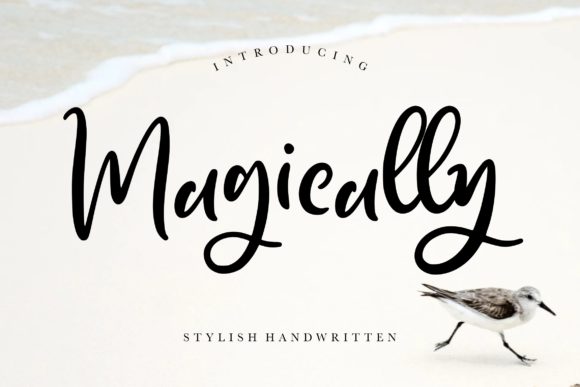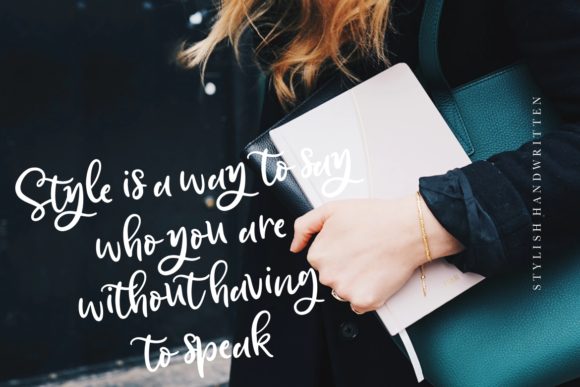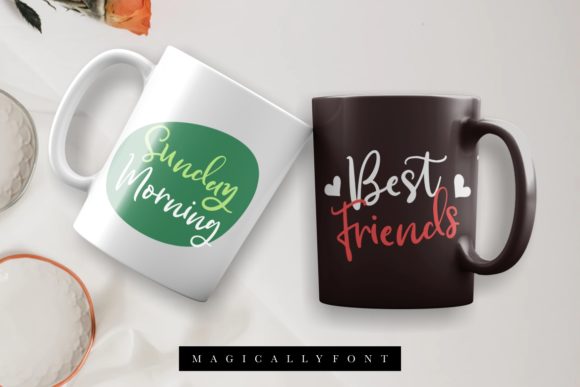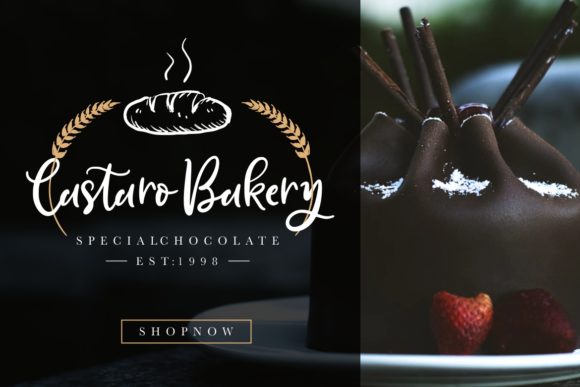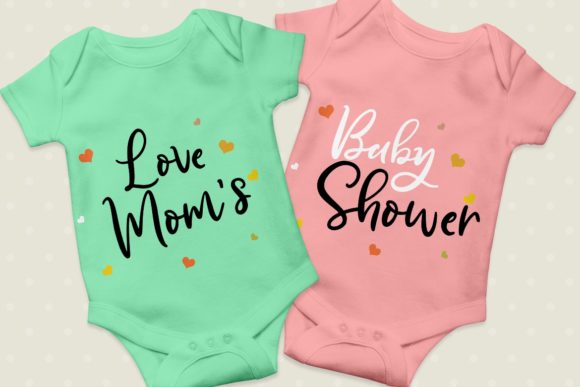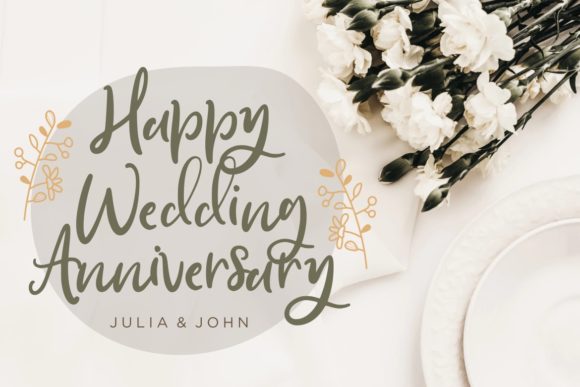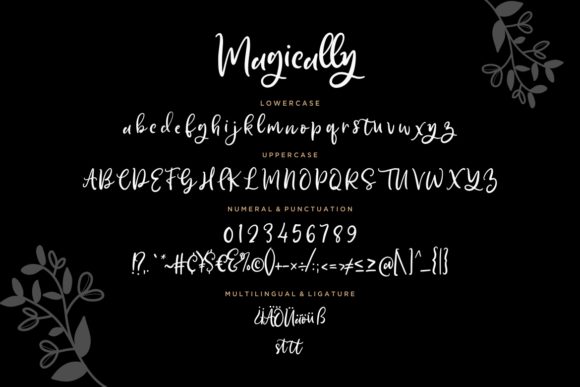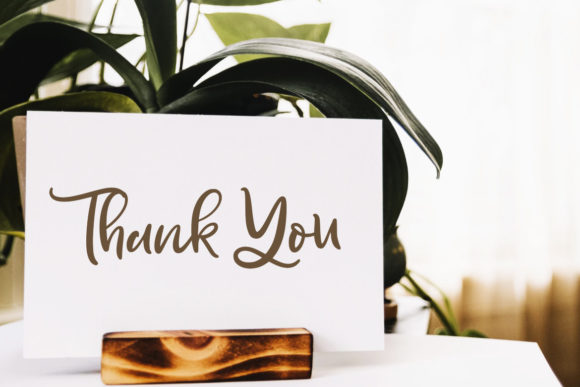
Magically Font
About Magically Font
Magically is a naturally stylish and magical font with a unique charm. Fall in love with its contemporary authenticity.